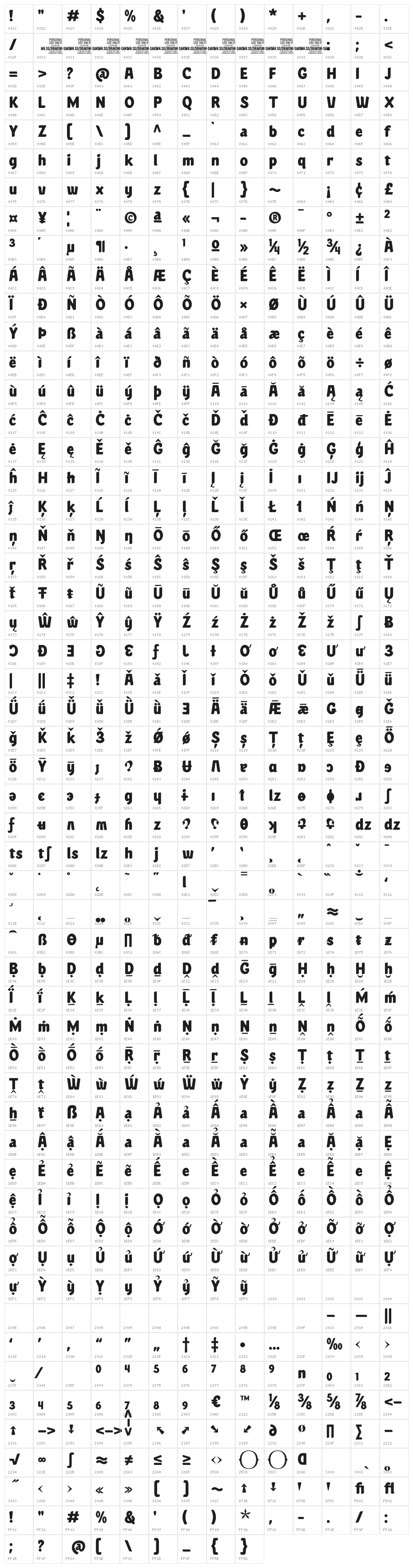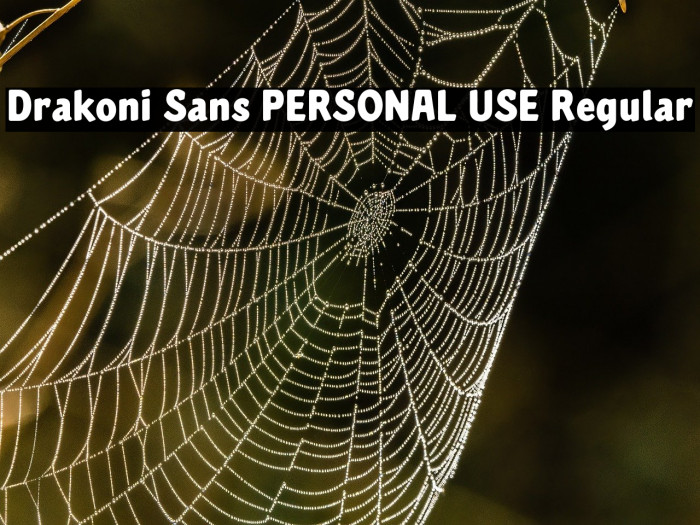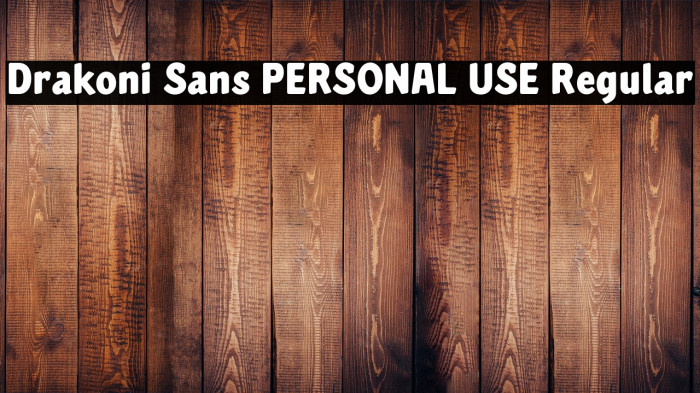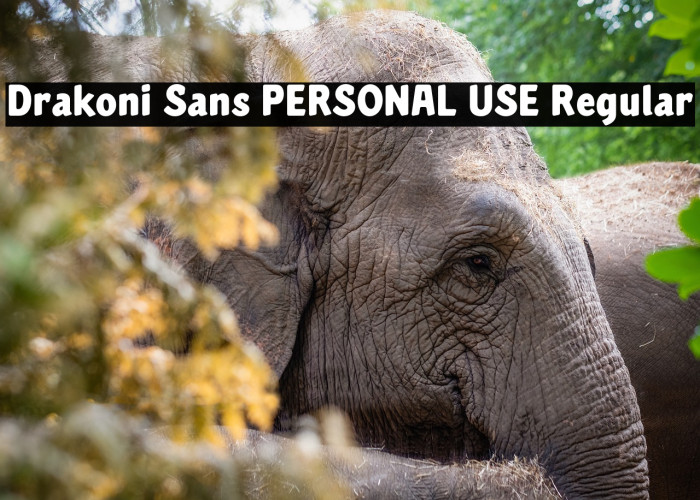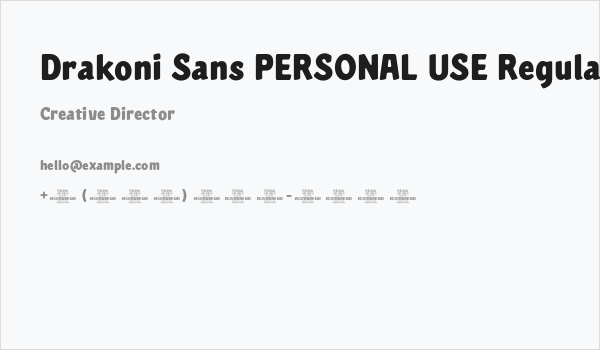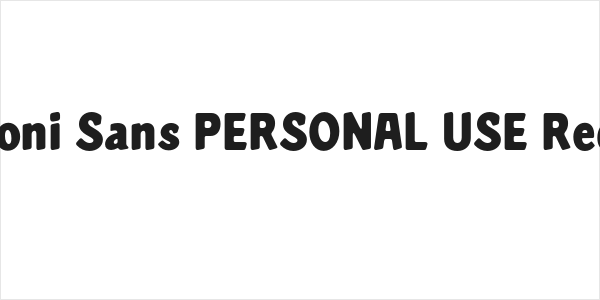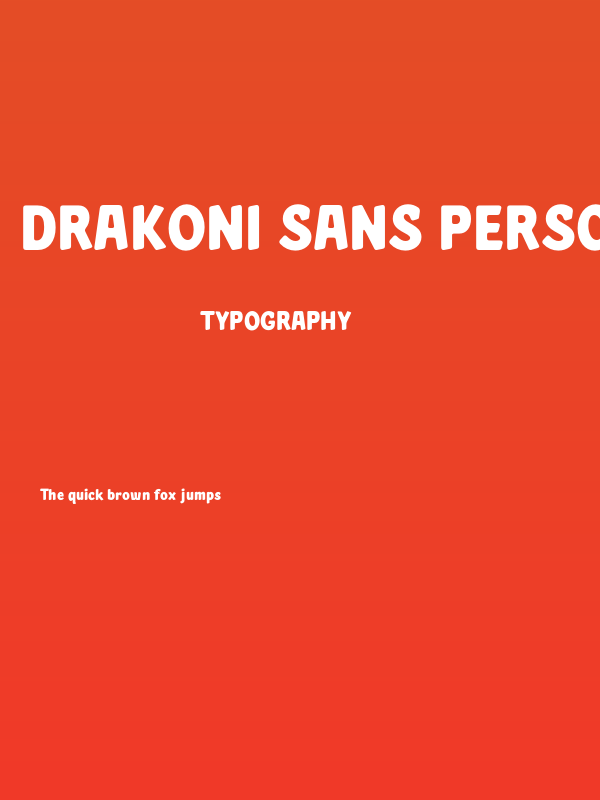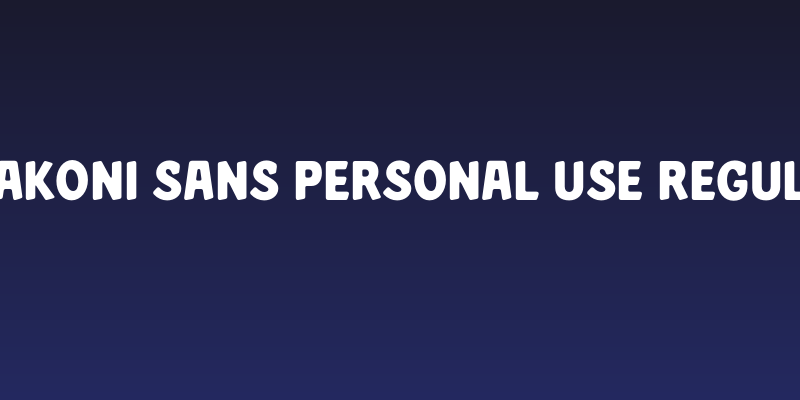
Drakoni Sans PERSONAL USE Regular Font
Drakoni Sans PERSONAL USE Regular Description
This font features a bold and playful style with rounded edges, giving it a friendly and approachable appearance. The characters are thick and uniform, providing a strong visual impact. The uppercase and lowercase letters maintain a consistent weight, contributing to a cohesive look. The numerals and special characters are designed to match the overall style, ensuring versatility across different uses. The font's boldness makes it suitable for attention-grabbing headlines and titles, while its rounded forms add a touch of whimsy.
| Overall Style | Playful, Modern |
| Proposed Projects | Ideal for children's books, playful branding, posters, and eye-catching headlines. |